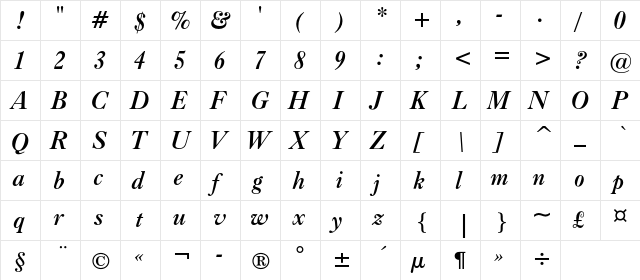
CaslonC 540 BT Bold Italic Font Preview
Design Context for CaslonC 540 BT Typeface
CaslonC 540 BT takes a measured approach to typography — its balanced proportions and neutral character make it a reliable workhorse for both digital and print work. Its italic angle brings a sense of urgency and motion to the letterforms. Its bold stroke weight gives it real presence on the page.
Pro Tip: Try CaslonC 540 BT for annotation and caption copy alongside an upright companion — the contrast in angle creates a dynamic but ordered typographic system.